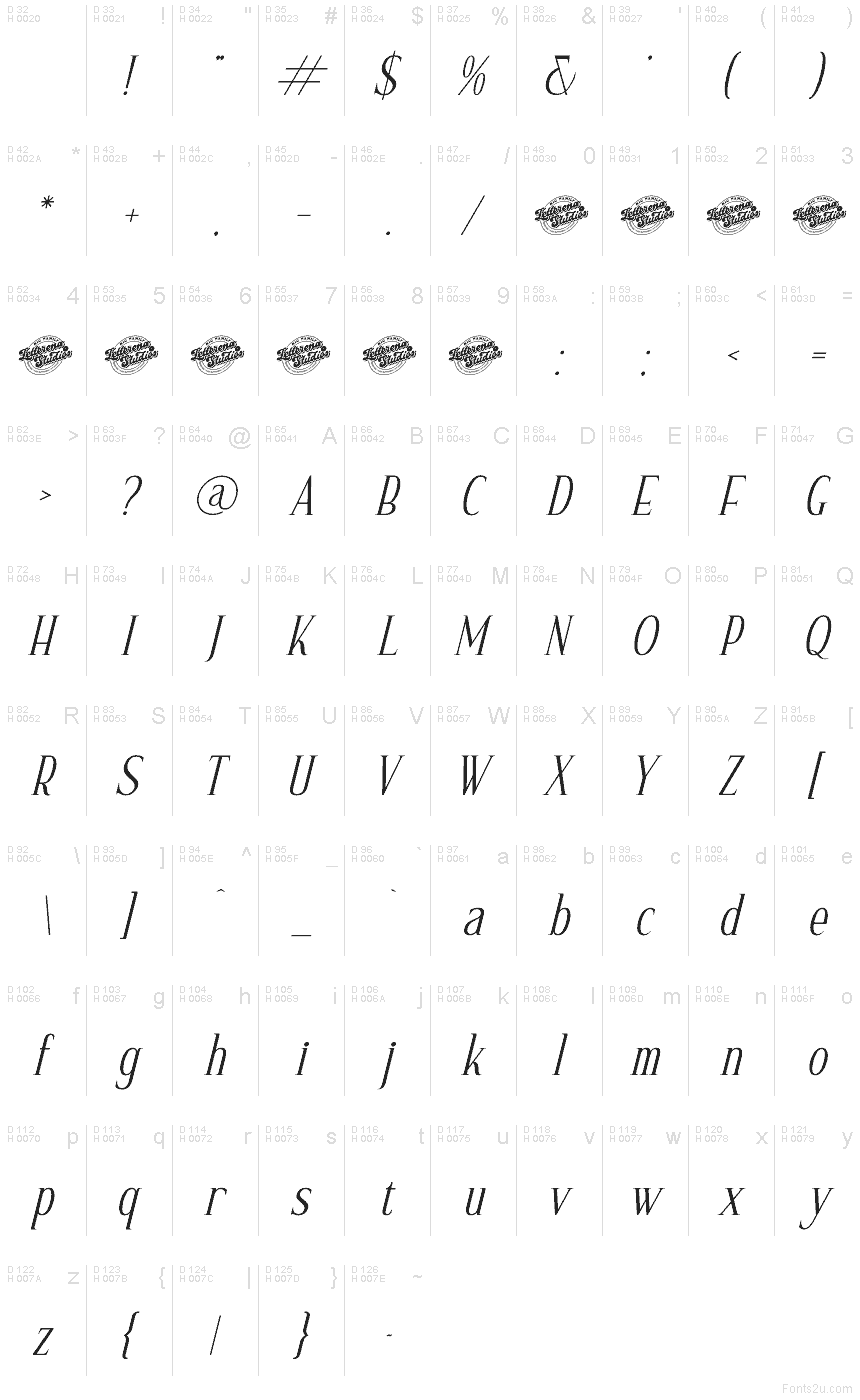
Nerhole DEMO VERSION Italic
Nerhole Italic font by Letterena Studios is an elegant serif font with a condensed style, characterized by its unique flowing curves and refined presence. This distinctive typeface exudes sophistication, with its smooth lines and balanced proportions making it perfect for creators who want a touch of class to their design projects.